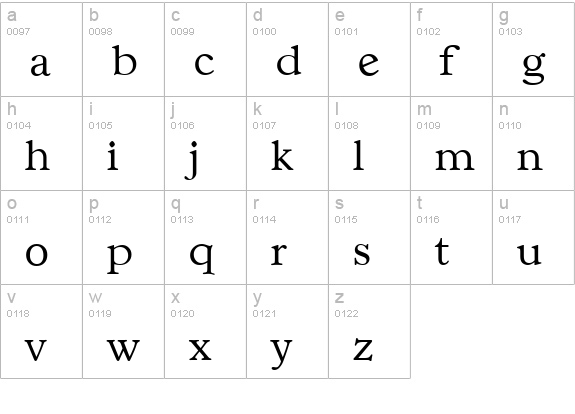
CasablancaSerial-Xlight-Regular is the standard, neutral variant in the CasablancaSerial typeface family \xE2\x80\x94 well suited to general body text, paragraphs, and standard typographic work.
CasablancaSerial-Xlight-Regular is a modern and elegant font that exudes sophistication and style. With its sleek lines and clean curves, this font is perfect for adding a touch of class to any design project. Whether you are creating a logo, designing a website, or working on a print publication, CasablancaSerial-Xlight-Regular is sure to make a bold statement. The best part? CasablancaSerial-Xlight-Regular is completely free! You can download this amazing font at FontsMarket.com and use it in your projects without any restrictions. Don't miss out on the opportunity to enhance your designs with this beautiful typeface. Download CasablancaSerial-Xlight-Regular today and take your work to the next level.